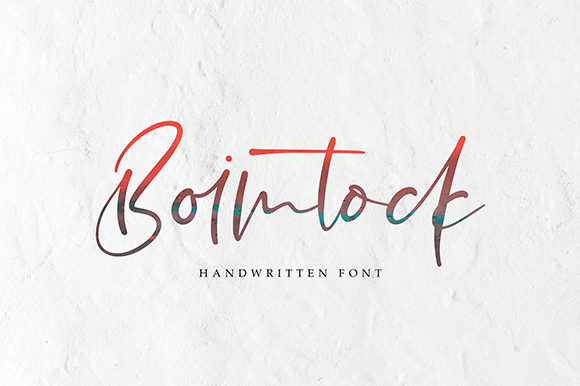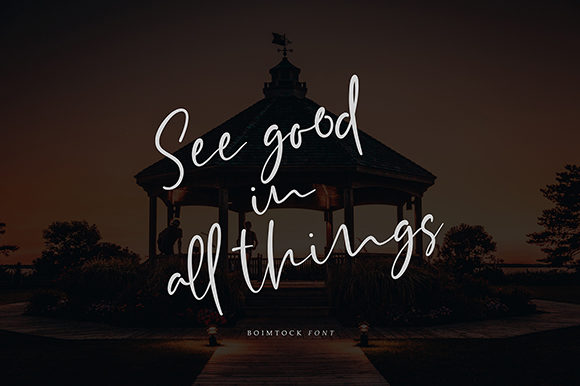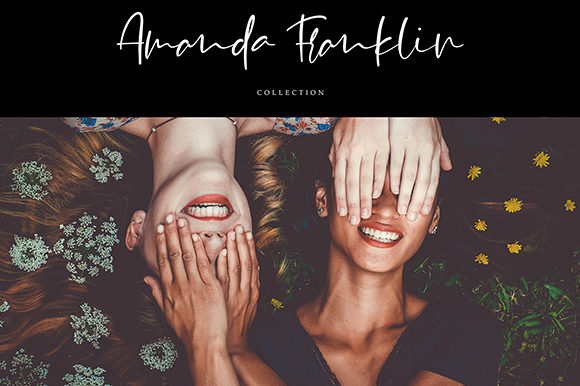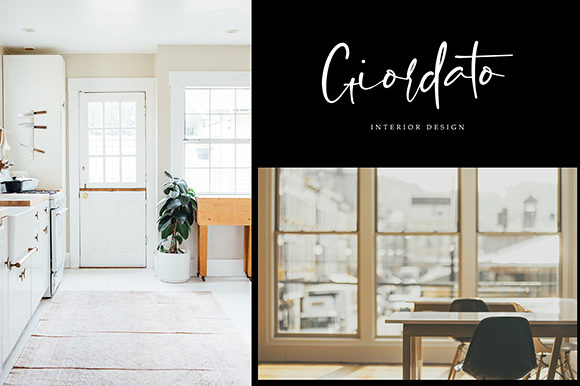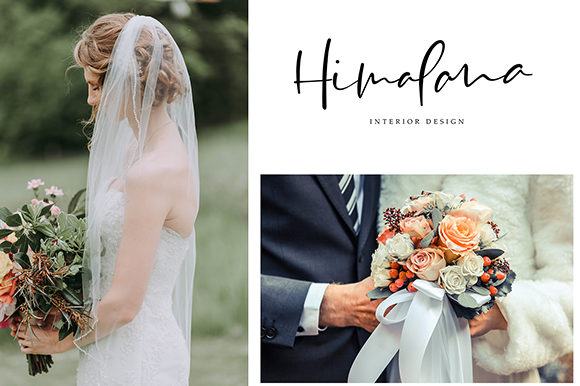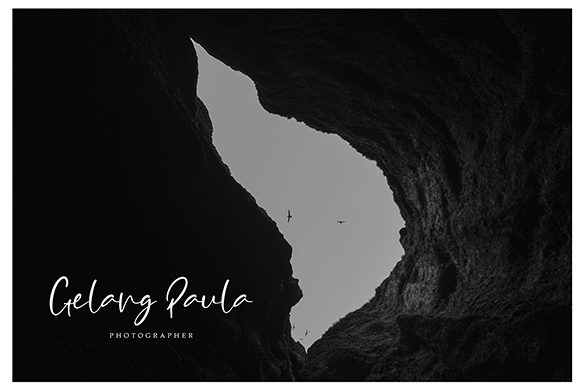
Boimtock Font
About Boimtock Font
Boimtock is a beautiful and stunning handwritten font with an incredibly light feel. It will add an authentic spin to any creative project.